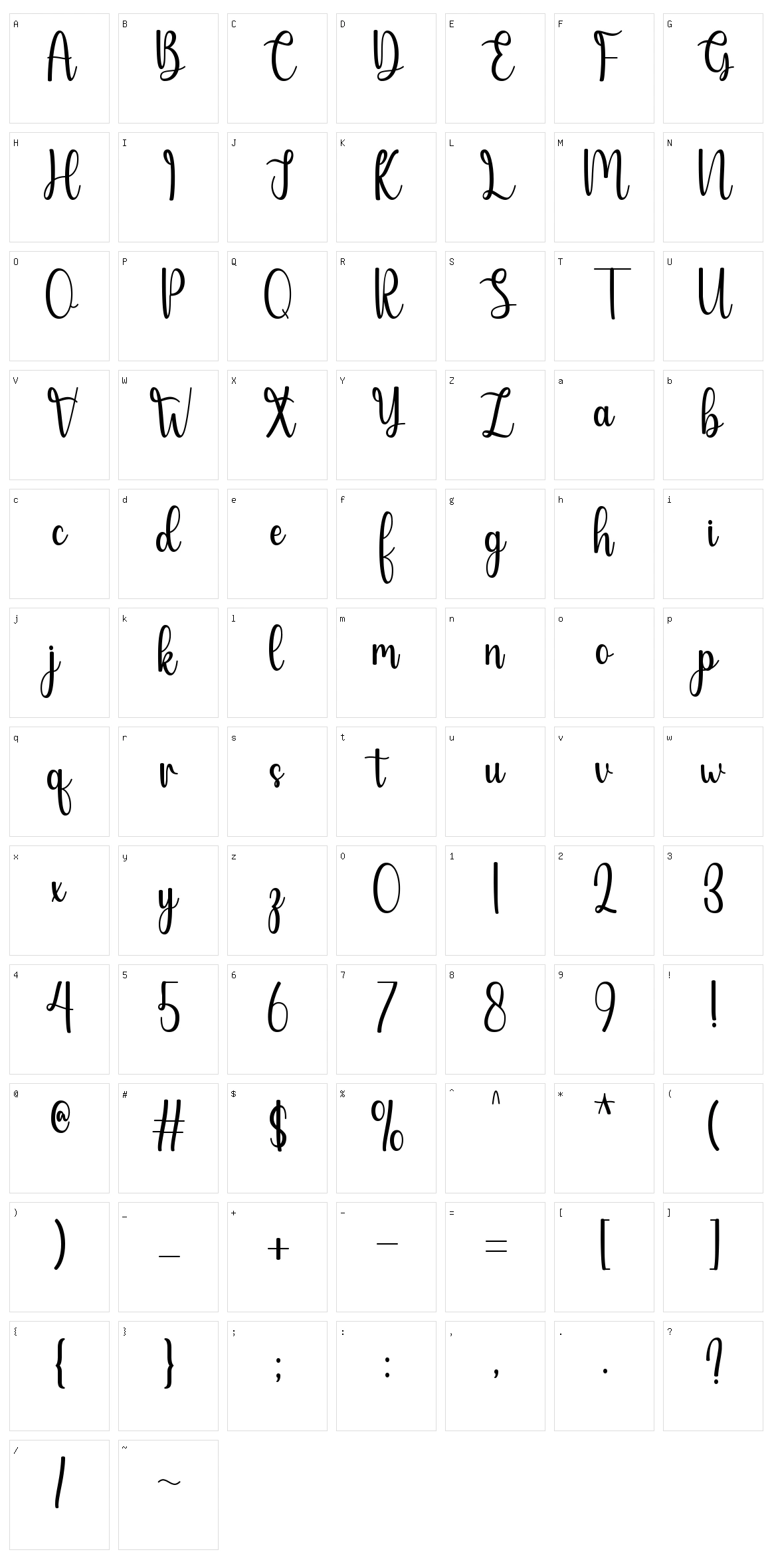
The free font Without is carefully designed by Hardiboy Design, showcasing a thoughtful balance of creativity and usability and falls under the Script font style. When you download the ZIP file, it contains only 14.37 KB of font files, making it lightweight and quick to download. Please review the license details below to understand permitted usage and distribution rights. If license information is not available, we recommend using this font for personal projects only or contacting the author directly for commercial usage permissions.